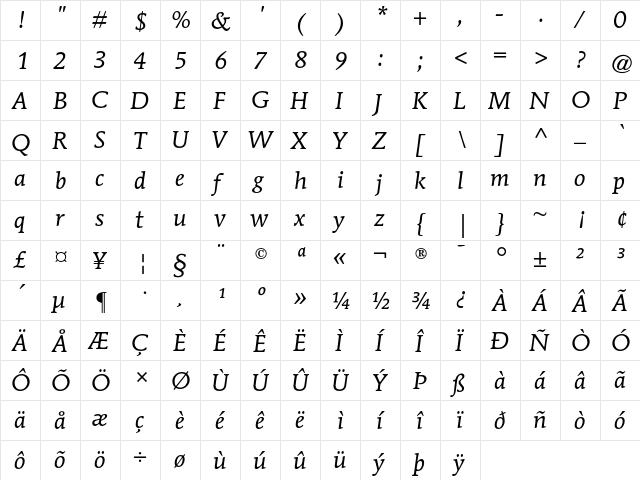
Mendoza Roman AT Book Italic
Design Context for Mendoza Roman AT Book Typeface
Mendoza Roman AT Book offers clean, dependable letterforms without strong stylistic allegiance, making it a practical choice for designers who need flexibility. Its italic angle brings a sense of urgency and motion to the letterforms.
Pro Tip: Try Mendoza Roman AT Book for annotation and caption copy alongside an upright companion — the contrast in angle creates a dynamic but ordered typographic system.